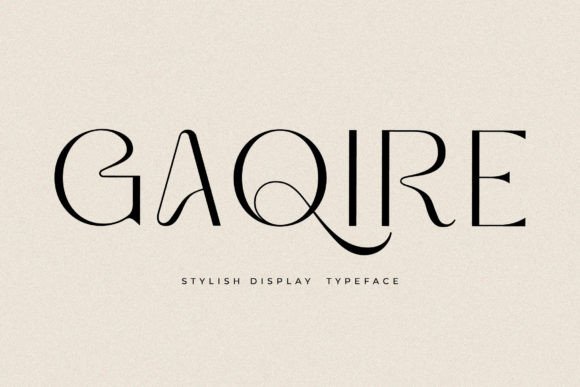
Unleash your wanderlust with Gaqire, the enchanting serif font that will transport your travel website to new heights of style. Crafted by the visionary minds at Storytype Studio, Gaqire exudes an undeniable sophistication with a hint of allure, making it the perfect companion for capturing the essence of your travel adventures.
With its elegant curves and fashionable appeal, Gaqire invites you to create designs that evoke a sense of luxury and feminine charm. Whether you're crafting captivating travelogues, designing stylish itineraries, or creating alluring invitations, Gaqire's versatility knows no bounds.
Immerse your website in the captivating world of Gaqire, where serif elegance meets modern chic. Download Gaqire today and embark on a typographic journey that will captivate your audience and leave an unforgettable impression.